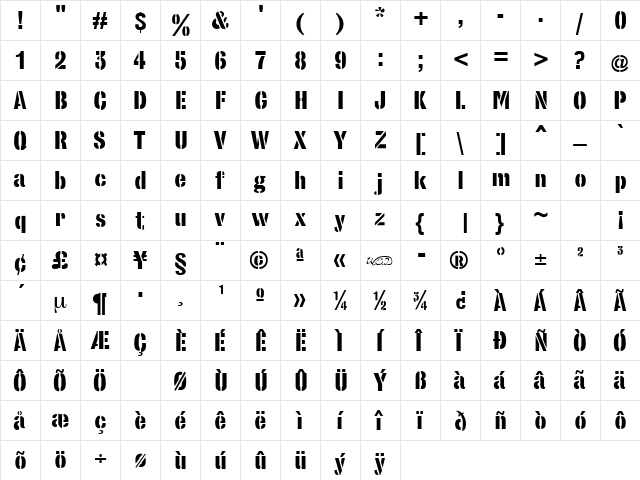
StencilSans fed
Design Context for StencilSans Typeface
StencilSans borrows the utilitarian aesthetic of stencil lettering, with its characteristic cutaways and no-frills construction lending an industrial edge.
A strong choice for packaging that needs edge, warehouse aesthetics, and rough-and-ready visual identities.
Pro Tip: Use StencilSans at large sizes on packaging, posters, or apparel where the stencil cutaways read clearly. Avoid small sizes where those gaps become visual noise.